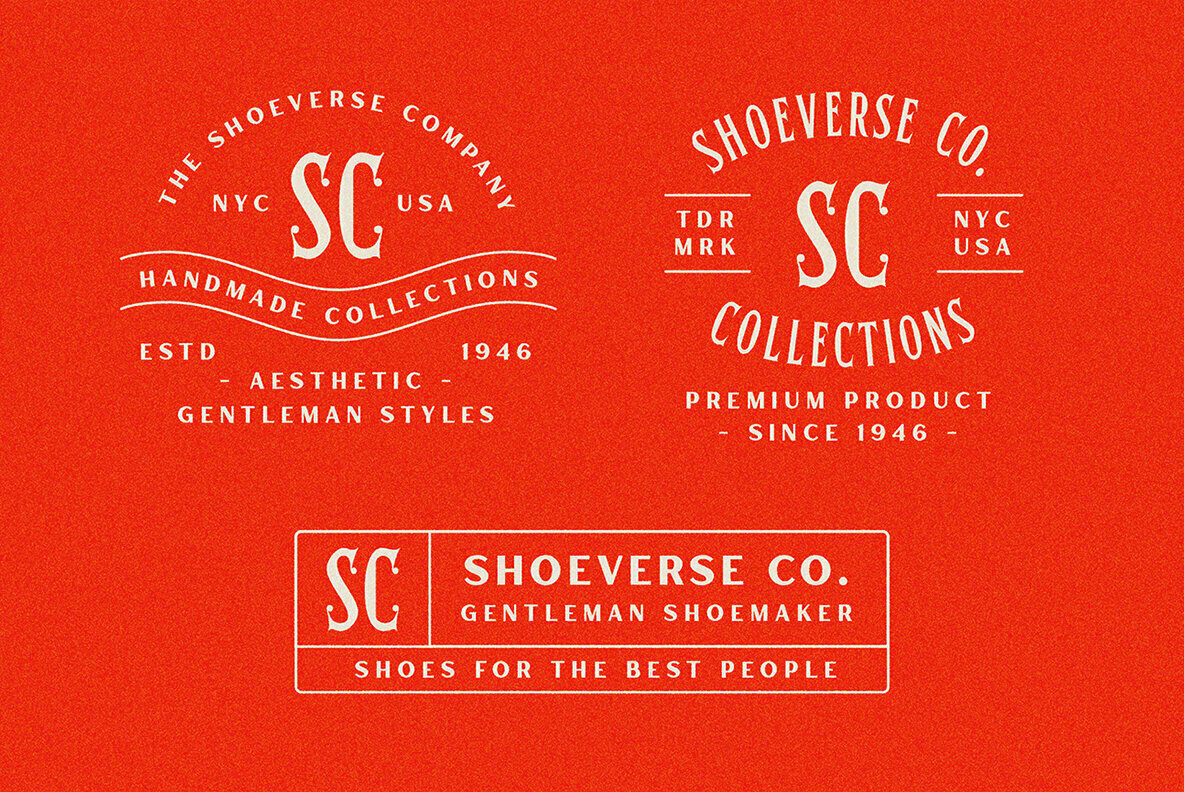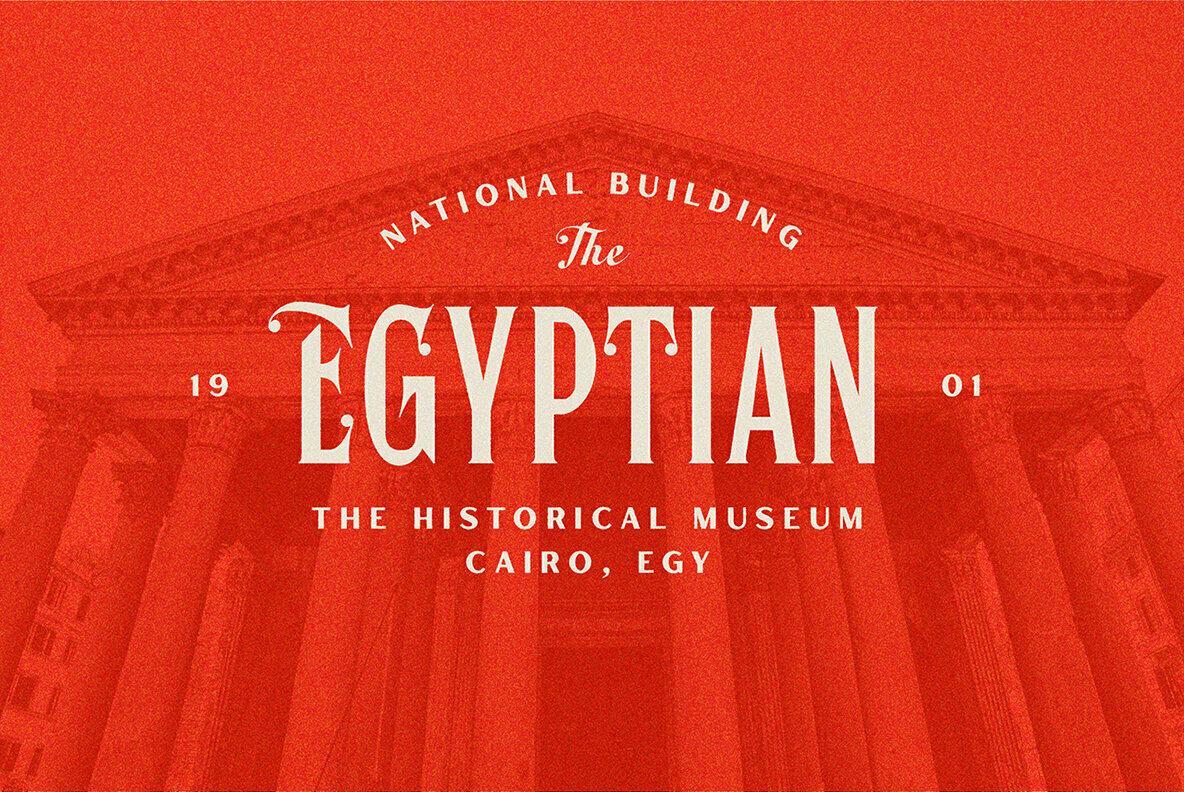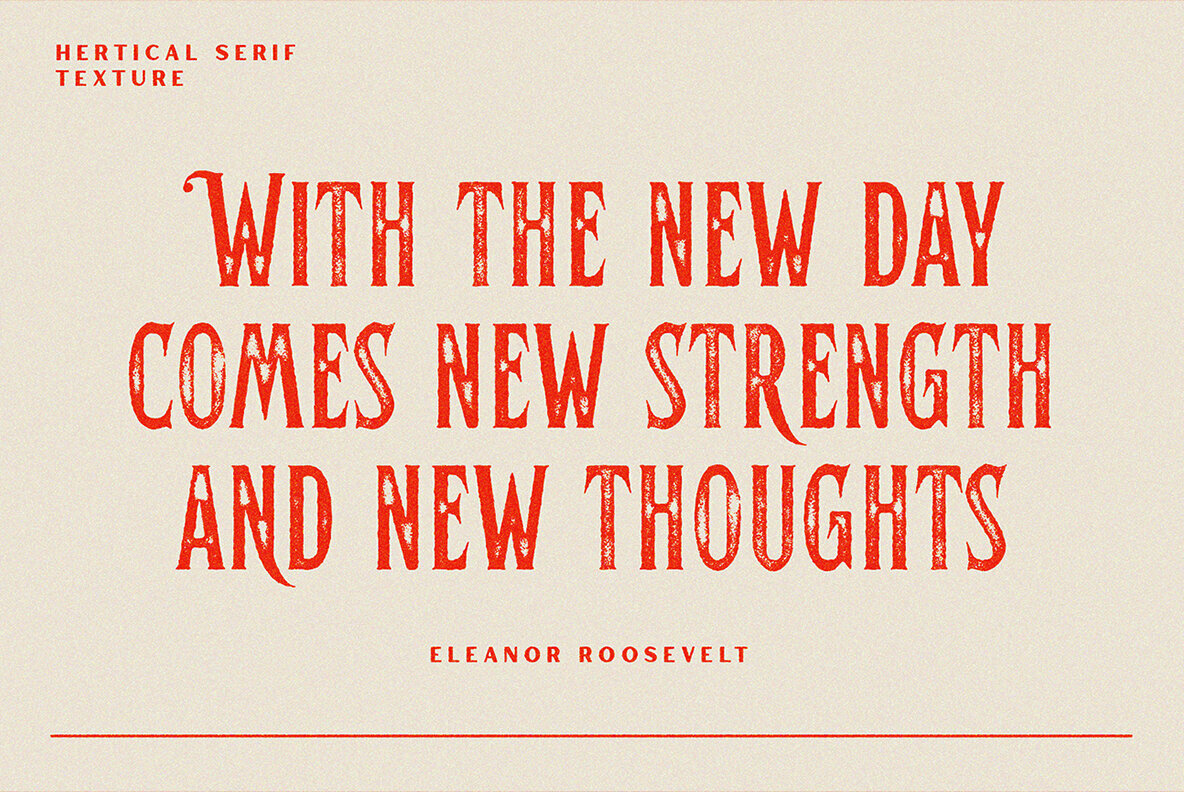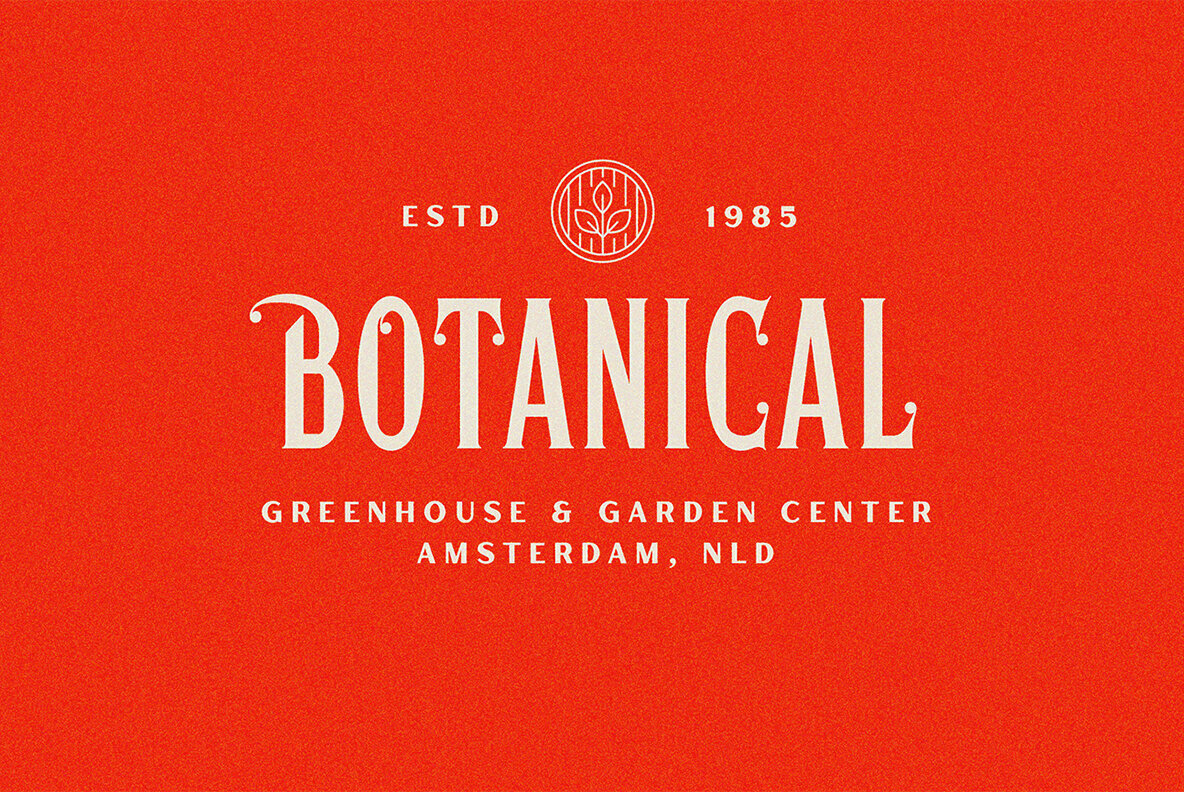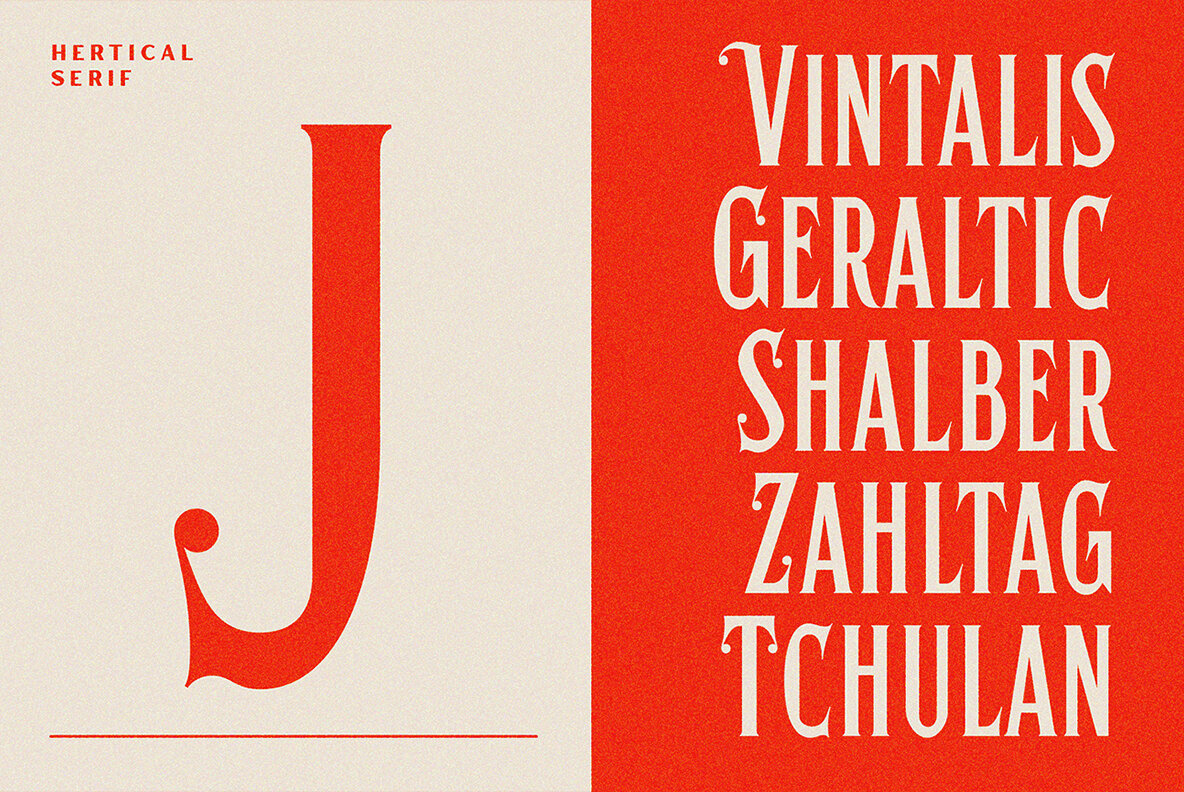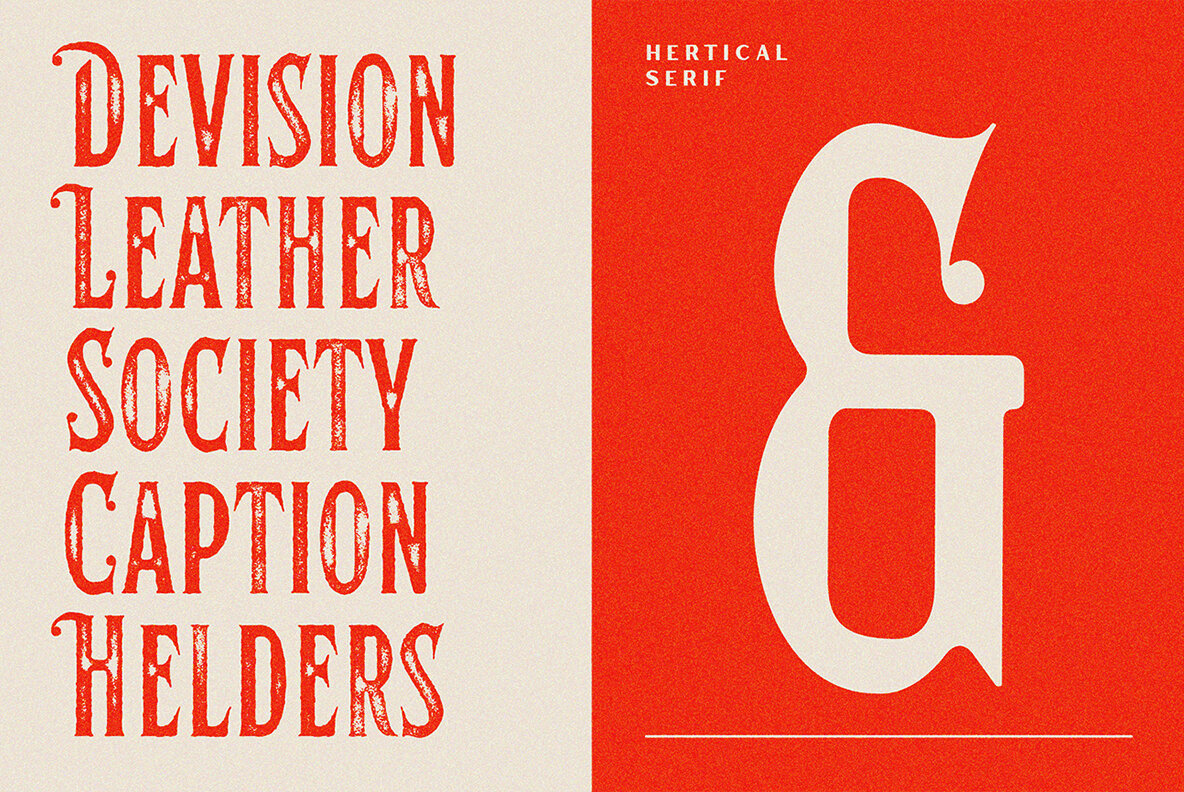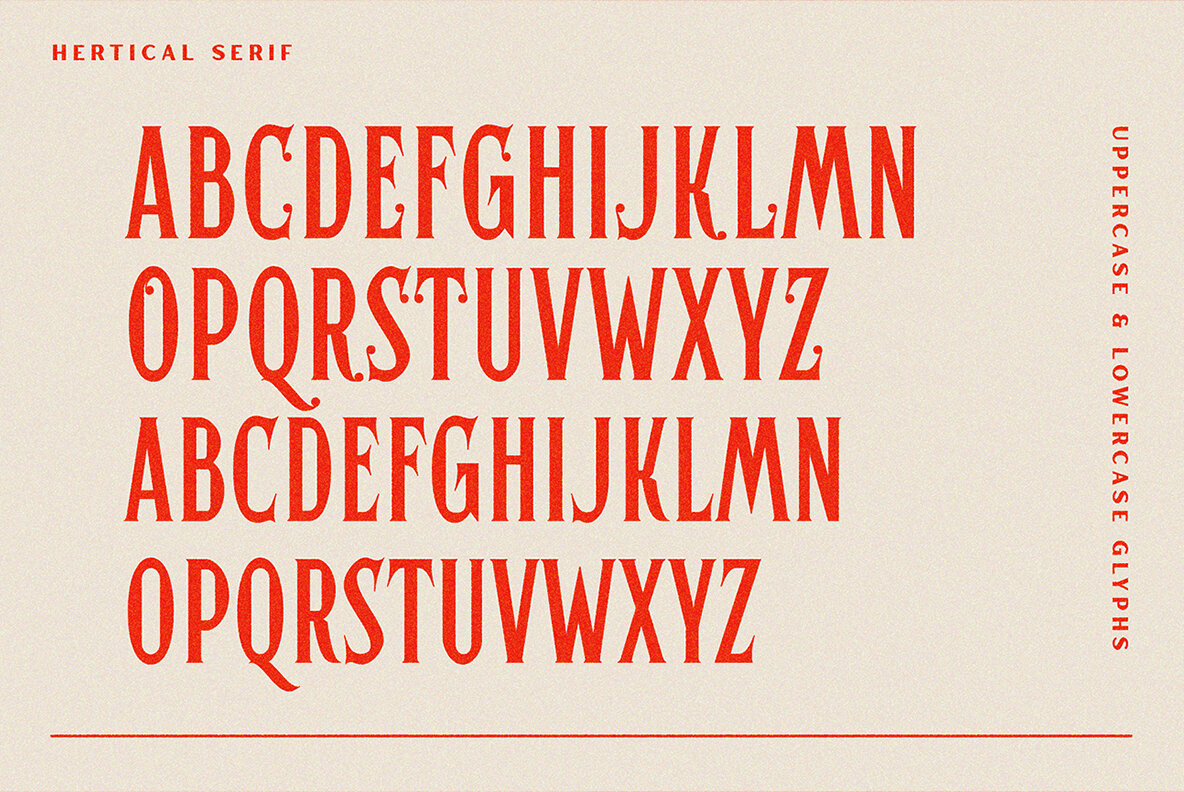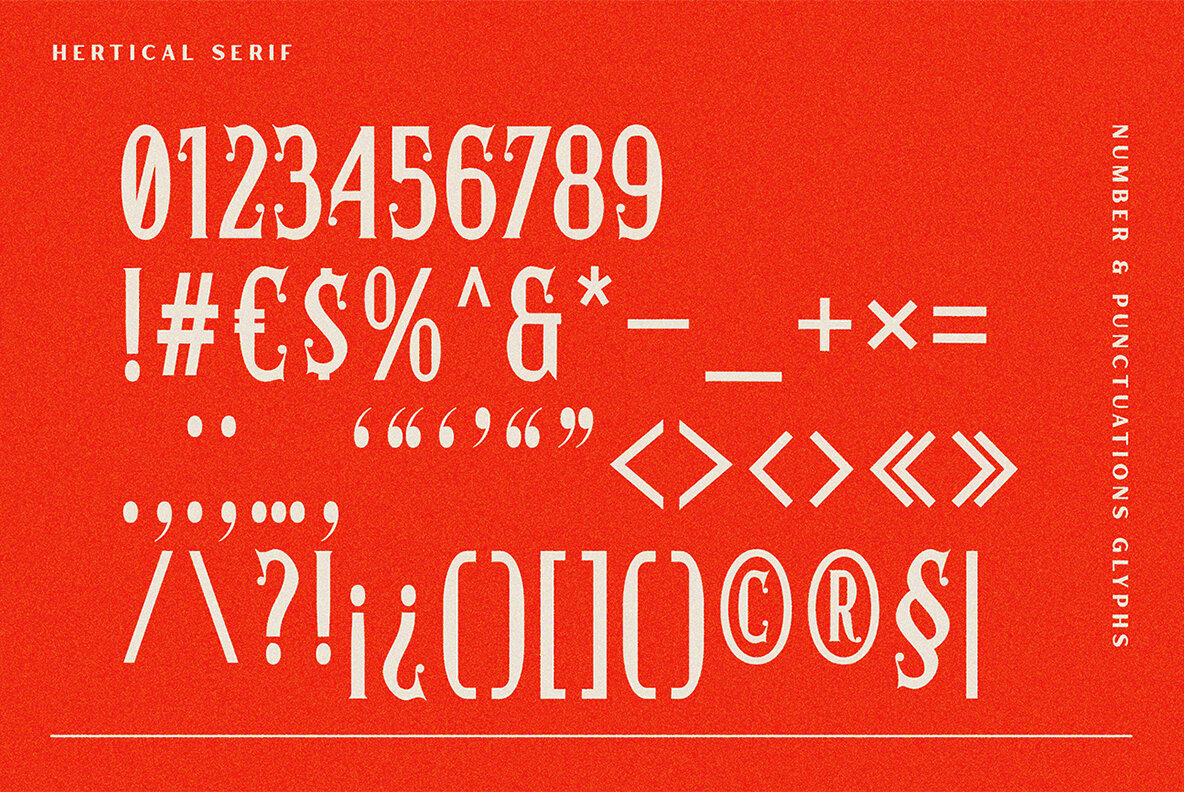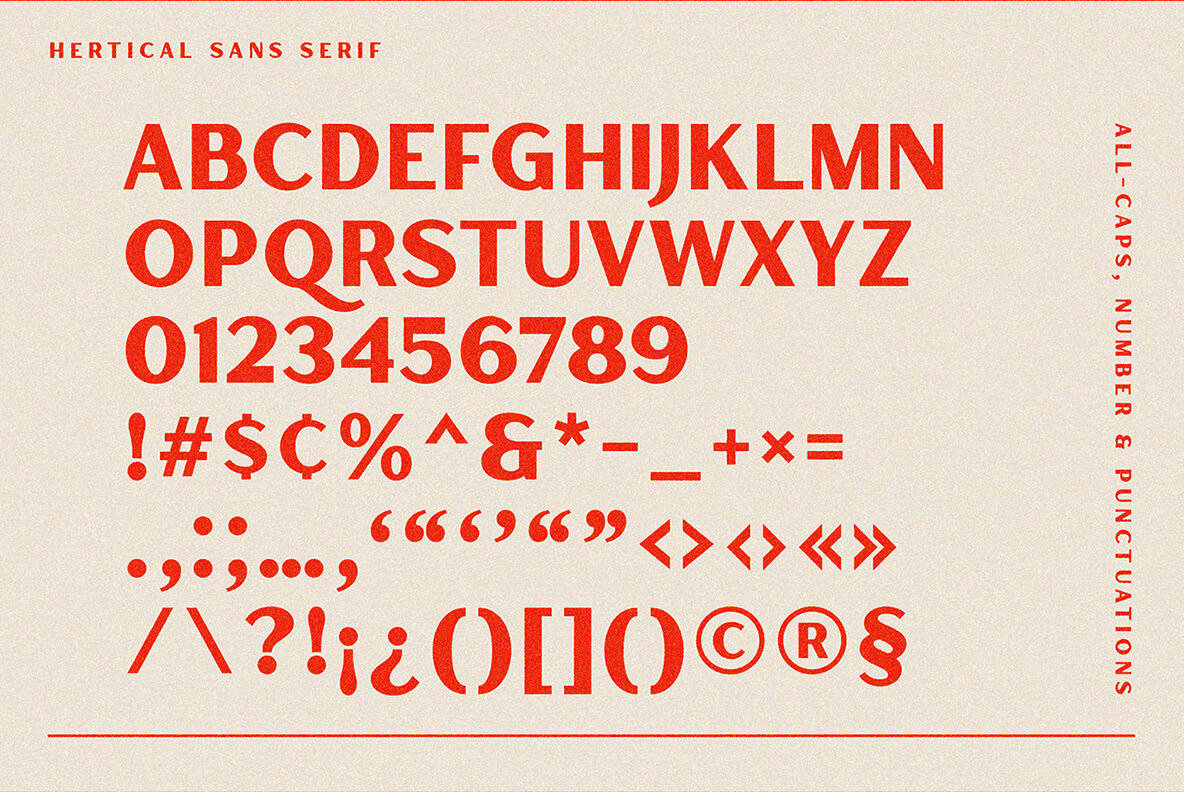
Hertical Font
Hertical Sans
Hertical Sans Rough
Hertical Sans Smooth
Hertical Sans Texture
Hertical Serif
Hertical Serif Rough
Hertical Serif Smooth
Hertical Serif Texture
With Hertical, a versatile display font, you experience the best of both worlds. This dual-typeface collection combines serif and sans serif elements across four distinctive styles: regular, smooth, rough, and texture. Crafted for versatility, Hertical seamlessly integrates into various design applications, including logotypes, posters, labels, badges, packaging, and branding materials.Hertical: Dual Typeface with Unique Styles